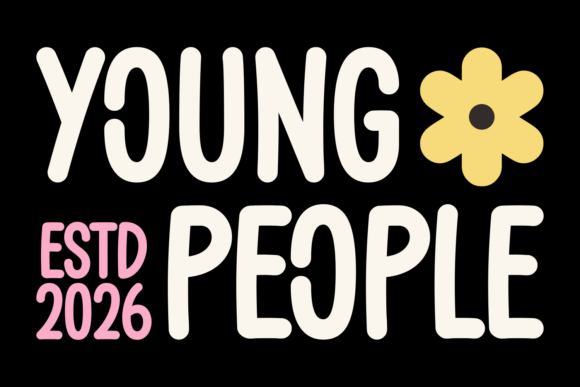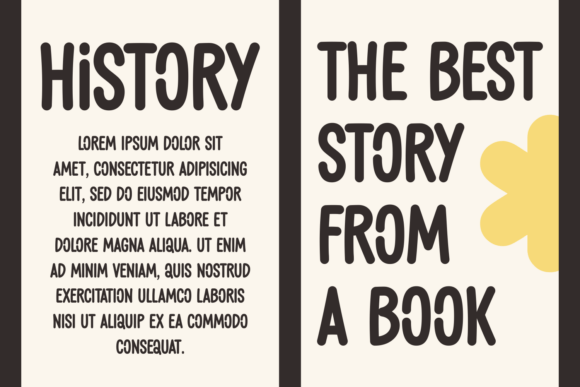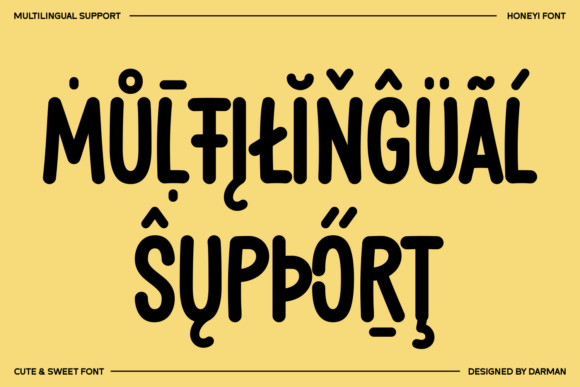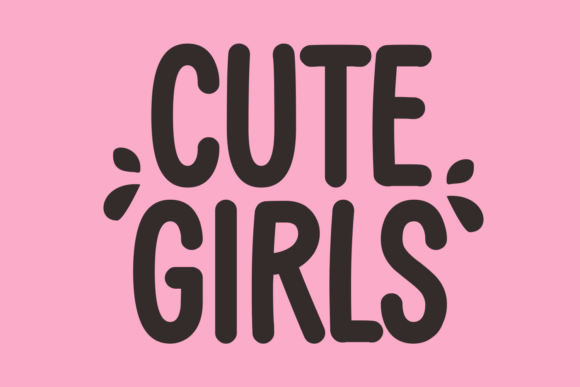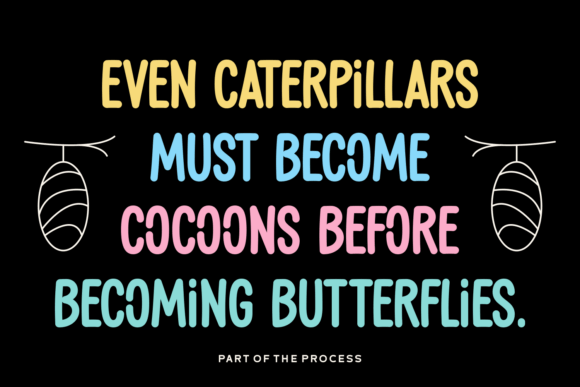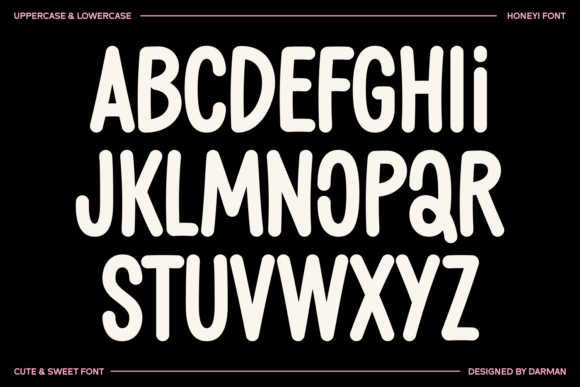
Where Creativity Meets Joy: Discovering Honeyi Font
Who hasn’t experienced that moment of pure creative bliss when the perfect font suddenly pops into your mind, elevating your design from ordinary to extraordinary? For designers, this moment is a game-changer. It’s the spark that sets off a chain reaction of inspiration, and Honeyi Font is one such spark that’s sure to ignite your imagination.
With its playful and engaging nature, Honeyi Font is the perfect typographical representation of unhindered joy and sheer delight. This delightful font is inspired by a youthful, spirited damsel, exuding positivity in every curve. Its vibrant color palette and lively rounded structure make it a valuable addition to any designer’s toolkit, adding a dash of bold creativity and whimsy to their projects.
Honeyi Font Key Features
- Font Family: Honeyi Font is a sans-serif font family designed for digital use.
- Character Set: Includes a wide range of characters, including Latin, Cyrillic, and Greek alphabets, making it suitable for multilingual use.
- Unique Characteristics: Features a unique blend of modern and minimalist design elements, with clean lines and a neutral color palette, making it suitable for various design applications.
Honeyi Font Review
As a designer, I was excited to dive into the Honeyi font, and here’s my honest review. ✨ One thing that really stands out is the unique blend of modern and vintage elements. The font has a playful, whimsical feel to it that’s perfect for creative projects.
- The font’s bold and italic styles add a lot of versatility, making it suitable for a wide range of applications.
- The ligatures and swashes add a touch of elegance and sophistication, elevating the overall design.
- The font’s open-source nature makes it accessible to designers of all levels.
However, there are some limitations to consider. ⚠️ The font’s readability can be affected by the abundance of swashes and ligatures, especially at smaller font sizes.
Overall, I’d say the Honeyi font is a great addition to any designer’s toolkit, but it’s not without its quirks. With some careful planning and adjustment, it can add a unique touch to your designs.
Tips for Getting the Most Out of Honeyi Font
For the best results, use Honeyi Font in conjunction with a clean and minimalist design aesthetic.
Use Honeyi Font for headings and titles to add a touch of elegance.
Honeyi Font is ideal for:
Branding and logo design.
Editorial and publishing design.
Alternatives to Honeyi Font for Designers
Playfair Display is an elegant, high-end serif font suitable for luxury brands and high-end designs. It features intricate details and luxurious feel, making it ideal for titles and headings. When to use: luxury brands, high-end products, and elegant designs. Comparison: Honeyi Font is more modern and minimalist, while Playfair Display is more traditional and ornate.
Montserrat is a modern sans-serif font with clean lines and geometric shapes. It’s highly legible and versatile, making it suitable for a wide range of designs. When to use: modern and minimalist designs, tech and software interfaces, and urban landscapes. Comparison: Honeyi Font has a more rounded feel, while Montserrat is more geometric and angular.
Lato is a modern sans-serif font with a friendly and approachable feel. It’s highly legible and works well in both digital and print designs. When to use: modern and minimalist designs, tech and software interfaces, and friendly branding. Comparison: Honeyi Font has a more rounded feel, while Lato is more geometric and modern.
Great Vibes is a modern script font with a fun and playful feel. It’s highly customizable and works well in creative and artistic designs. When to use: creative and artistic designs, hand-written typography, and playful branding. Comparison: Honeyi Font is more minimalist and modern, while Great Vibes is more playful and artistic.